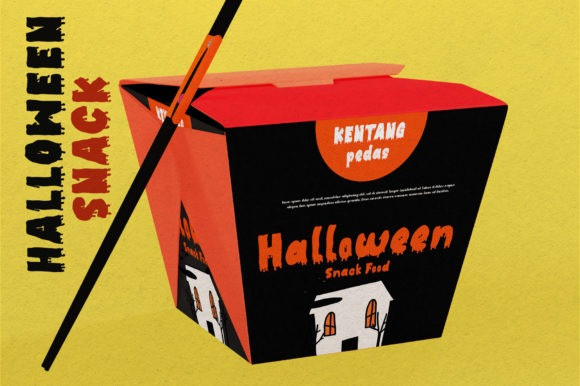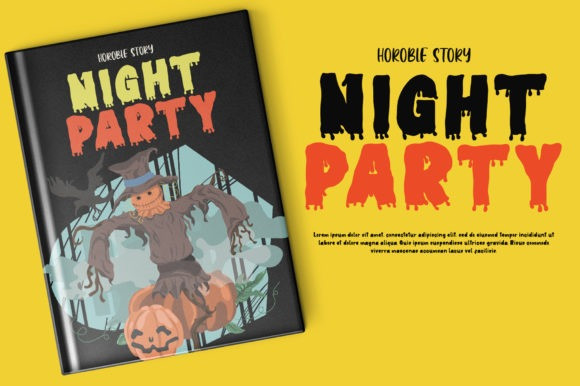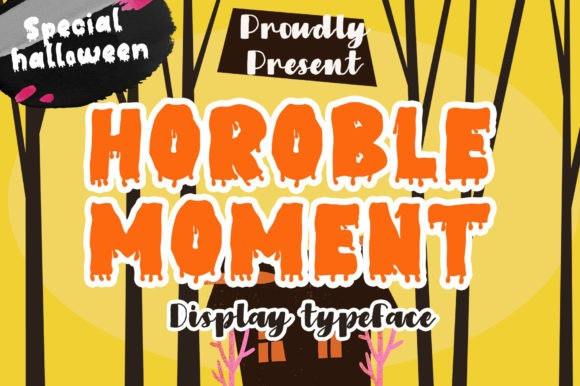
Horoble Moment Font
Horoble Moment Font is a creepy and fun looking display font. Add it to your Halloween crafts, horror movie posters, t-shirts and anything else that requires a spectacular look.